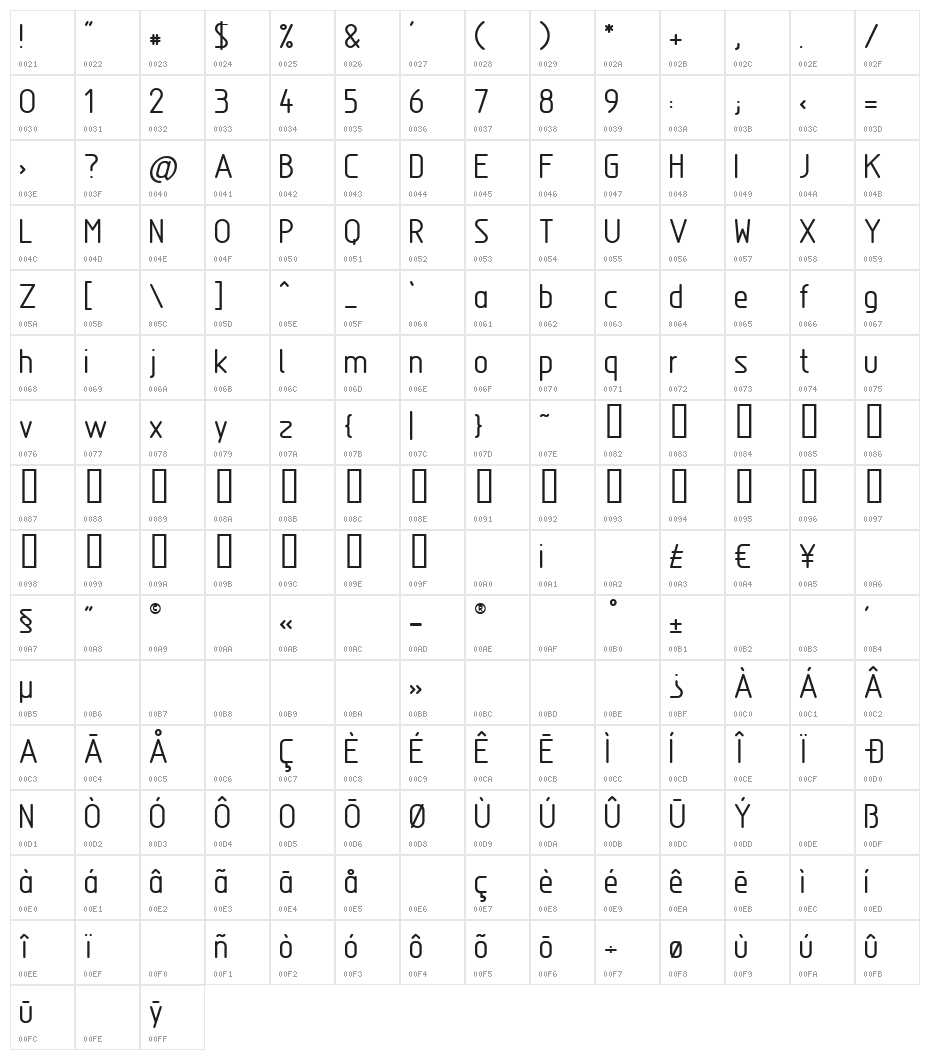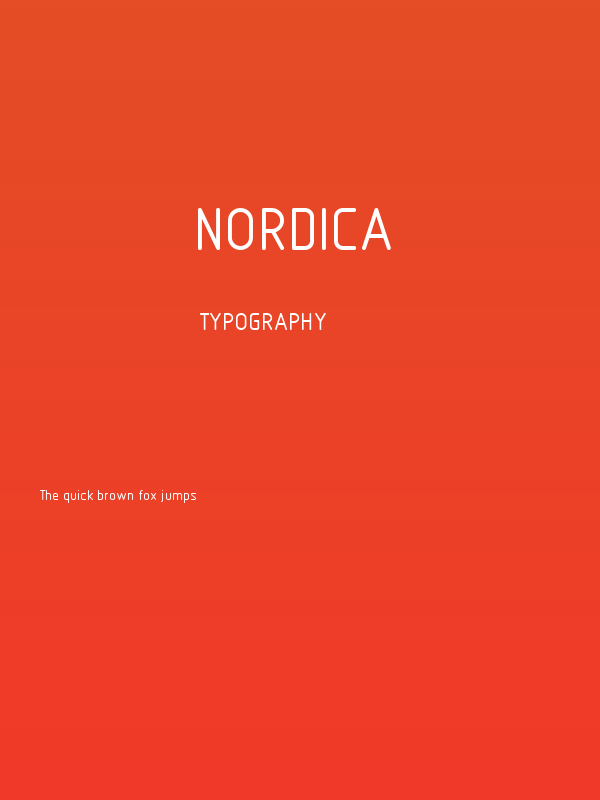
Nordica Font
Nordica Description
This font features a clean and modern sans-serif design with rounded edges, giving it a friendly and approachable appearance. The characters are evenly spaced with a consistent stroke width, providing a harmonious and balanced look. The uppercase letters are tall and slightly condensed, while the lowercase letters maintain a similar width, ensuring readability. The numerals are clear and distinct, making them suitable for both digital and print applications. Special characters are well-integrated, maintaining the overall aesthetic of the font.
| Proposed Projects | Ideal for branding, user interfaces, signage, and educational materials. |